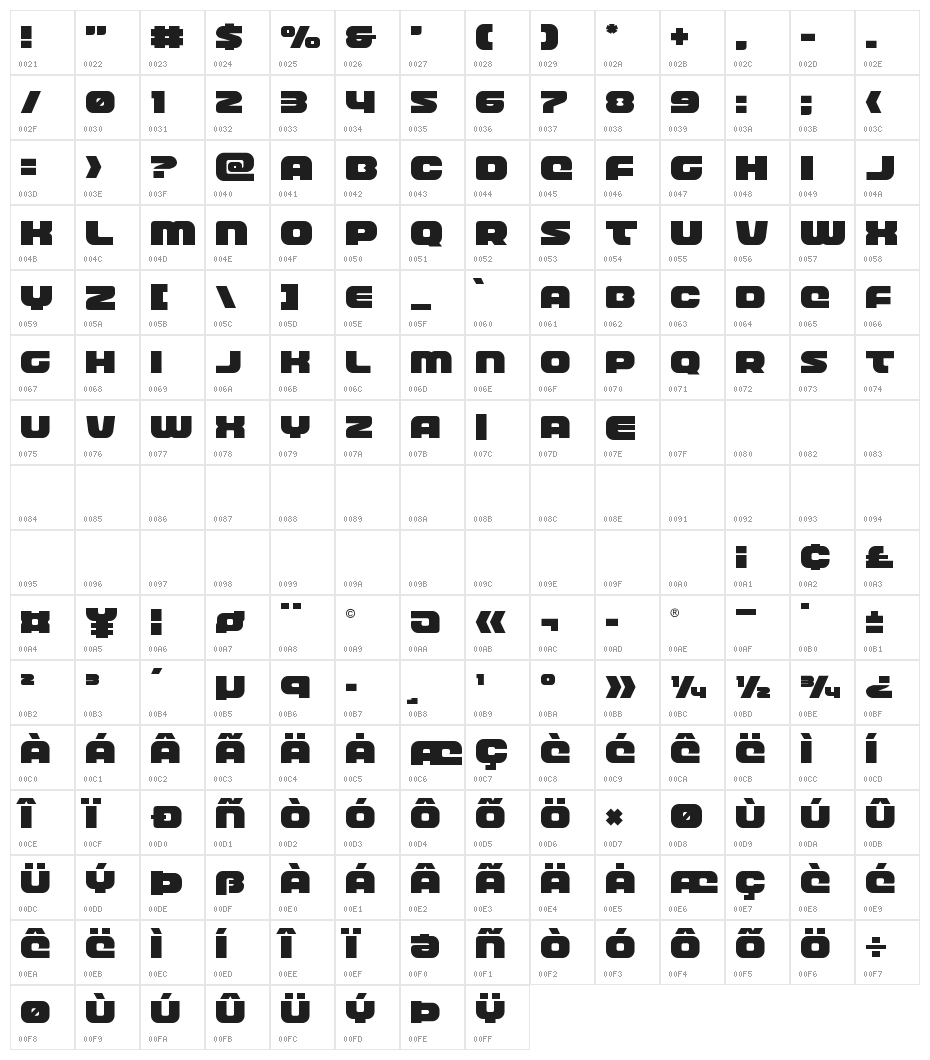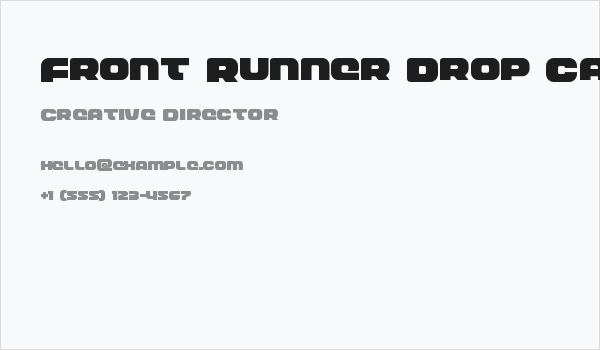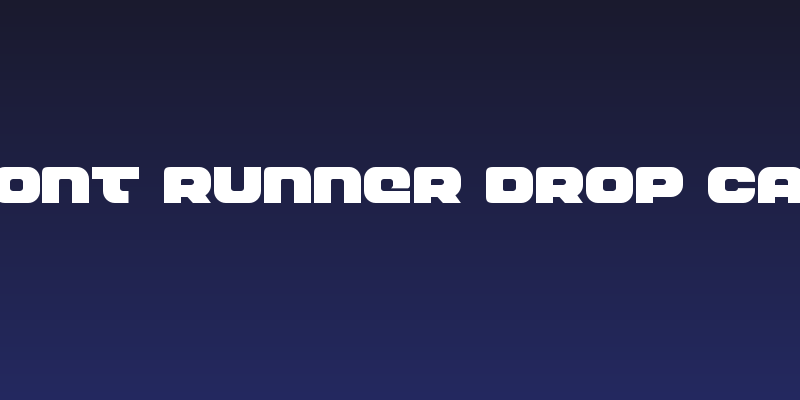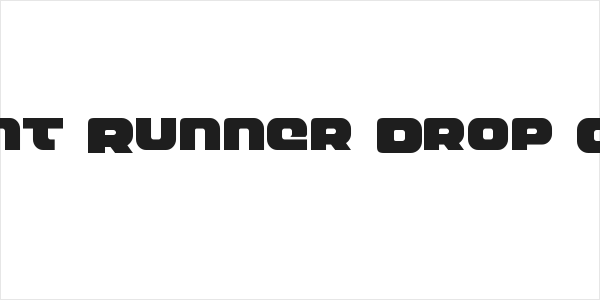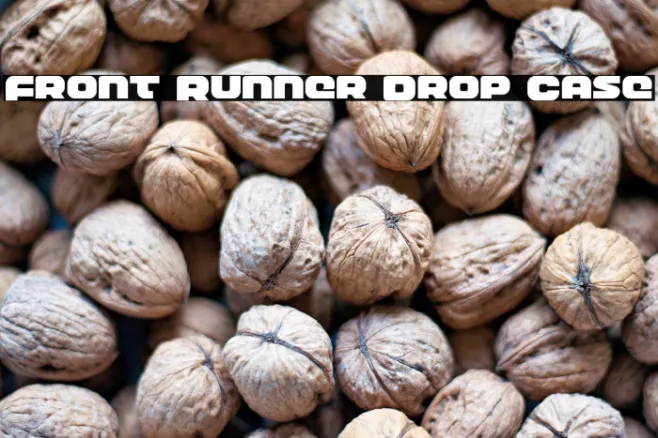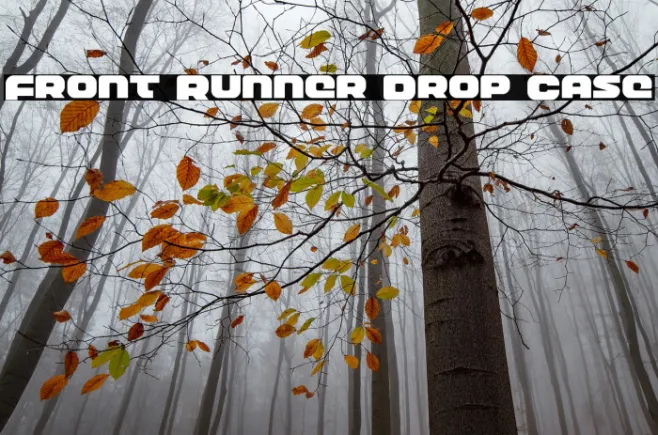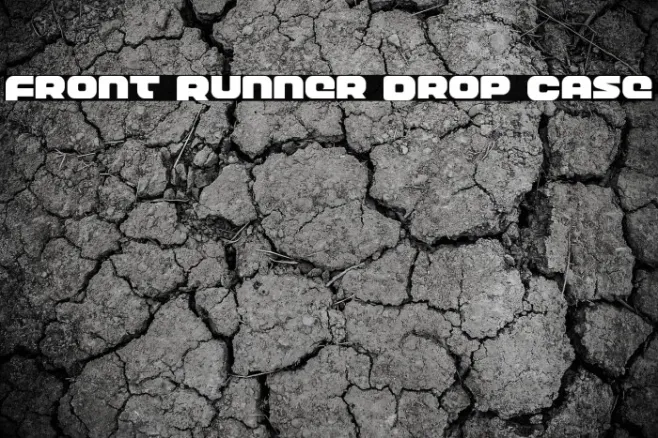
Front Runner Drop Case Font
Front Runner Drop Case Description
This font features a bold, geometric style with strong, block-like characters. The uppercase and lowercase letters maintain a consistent width, creating a uniform appearance. The characters are designed with a modern aesthetic, featuring sharp angles and clean lines. The numbers and special characters follow the same design principles, ensuring a cohesive look across all elements. The font's boldness and distinct style make it highly visible and impactful, suitable for attention-grabbing designs.
| Proposed Projects | Ideal for branding, posters, headlines, and any design requiring a strong visual impact. |